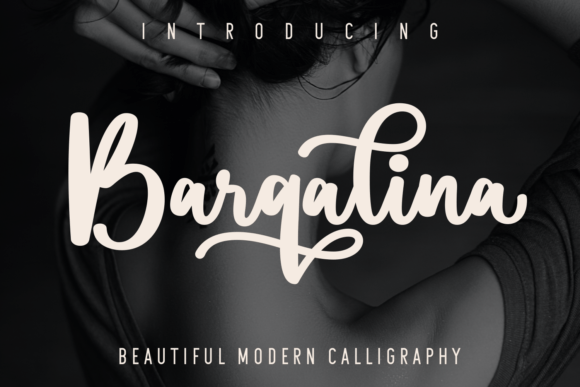
Introducing Barqalina Font: Elevate Your Designs with Luxury and Sophistication
In the world of typography, fonts play a crucial role in conveying the tone and personality of a brand or design. For those seeking to add a touch of luxury and sophistication to their work, Barqalina Font is an exceptional choice. This premium handwritten font boasts refined details and elegant lines, making it perfect for high-end branding, luxury invitations, and sophisticated designs.
Key Features of Barqalina Font
- Refined Details: Barqalina Font is crafted with meticulous attention to detail, ensuring that every letter and swash is elegant and refined.
- Elegant Lines: The font’s lines are smooth and flowing, adding a touch of sophistication to any design.
- PUA Encoded: Barqalina Font is PUA (Private Use Area) encoded, allowing effortless access to all glyphs and swashes.
- Premium Quality: As a premium font, Barqalina is designed to meet the highest standards of typography, ensuring that your designs stand out from the crowd.
Ideas for Using Barqalina Font
Barqalina Font is incredibly versatile, making it suitable for a wide range of design applications. Here are some ideas to get you started:
- High-End Branding: Use Barqalina Font to create luxurious brand identities that exude sophistication and elegance.
- Luxury Invitations: Add a touch of exclusivity to your wedding invitations, event invitations, or corporate event materials with Barqalina Font.
- Sophisticated Designs: Use Barqalina Font to create stunning designs for magazines, brochures, or advertisements that require a high-end feel.
- Wedding Stationery: Make your wedding stationery stand out with Barqalina Font, perfect for creating beautiful wedding invitations, save-the-date cards, or thank-you cards.
The Benefits of Using Barqalina Font
By incorporating Barqalina Font into your designs, you can enjoy numerous benefits, including:
- Enhanced Visual Appeal: Barqalina Font adds a touch of luxury and sophistication to your designs, making them more visually appealing.
- Improved Brand Perception: Using a high-end font like Barqalina can elevate your brand’s perception, making it appear more exclusive and premium.
- Increased Versatility: Barqalina Font is suitable for a wide range of design applications, making it a valuable addition to your font library.
- Effortless Customization: With PUA encoding, you can access all glyphs and swashes effortlessly, making it easy to customize your designs.
Tips and Tricks for Getting the Most Out of Barqalina Font
To maximize the impact of Barqalina Font, consider the following tips and tricks:
- Pair with Neutral Colors: Combine Barqalina Font with neutral colors like black, white, or gray to create a clean and sophisticated look.
- Experiment with Swashes: Take advantage of Barqalina’s swashes to add a touch of elegance and flair to your designs.
- Use for Headings and Titles: Barqalina Font is perfect for headings and titles, making it an excellent choice for creating stunning typography.
- Mix with Other Fonts: Experiment with pairing Barqalina Font with other fonts to create a unique and visually appealing typography combination.
In conclusion, Barqalina Font is an exceptional choice for designers seeking to add a touch of luxury and sophistication to their work. With its refined details, elegant lines, and PUA encoding, this premium handwritten font is perfect for high-end branding, luxury invitations, and sophisticated designs. By incorporating Barqalina Font into your designs, you can elevate your visual appeal, improve brand perception, and enjoy increased versatility.